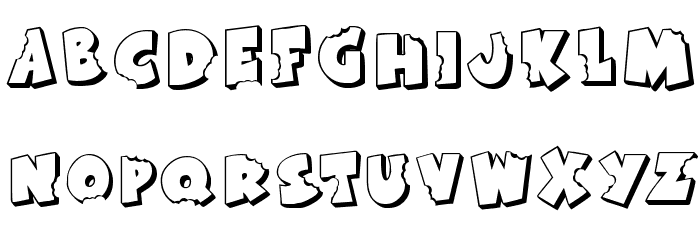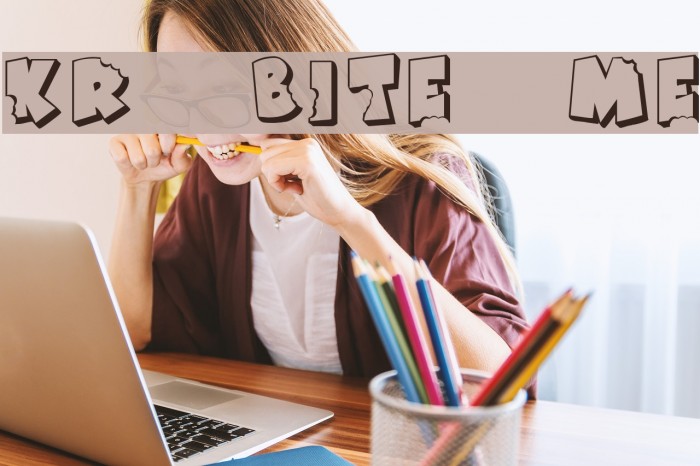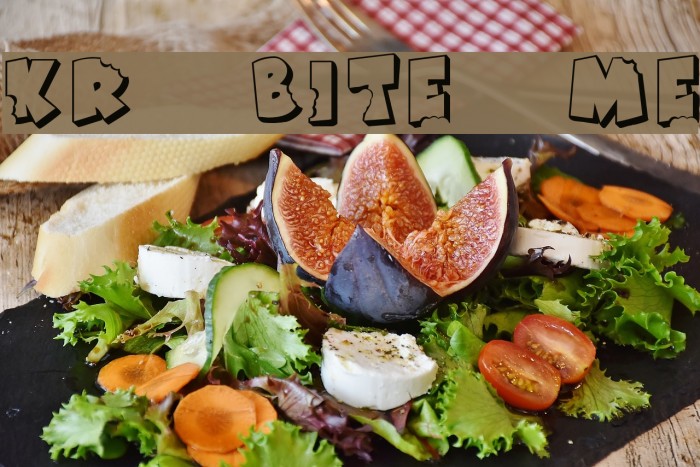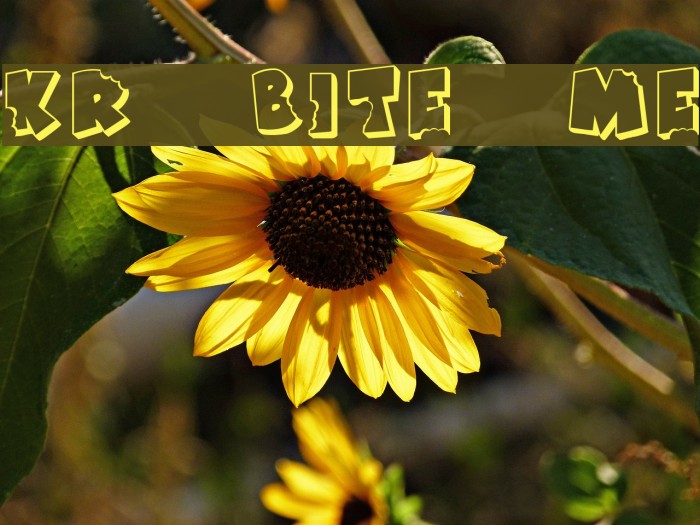
KR Bite Me Font
This playful and bold font features a unique design where each character appears to have been bitten or chomped, creating a fun and quirky aesthetic. The letters are thick and chunky, with a cartoonish style that adds a sense of whimsy and humor. The irregular edges and bold outlines enhance the playful nature, making it stand out in any design. It's perfect for projects that require a touch of fun and creativity, such as children's books, comic strips, or playful branding. The font maintains a consistent weight throughout, ensuring readability while still delivering its distinctive style.
A bold, playful font with a chomped, cartoonish design.
- Proposed Projects: Ideal for children's books, comic strips, playful branding, and fun posters.
- Overall Style: Playful, Cartoonish, Fun